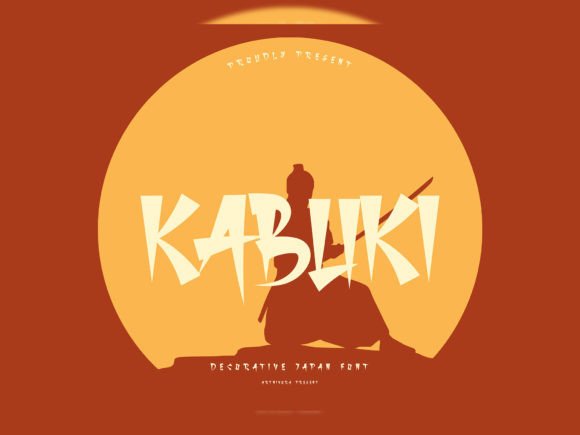
Immerse yourself in the captivating world of Japanese aesthetics with Kabuki, a display font that dances with bold strokes and dynamic energy. Experience the beauty of traditional Japanese theater as this font carries your designs to new heights of elegance and authenticity.
Crafted by the talented team at artnivora.std, Kabuki is not just a font; it's an artistic journey, capturing the essence of Japan's rich cultural heritage. With each stroke, this display font paints a picture of ancient rituals and enchanting performances, transforming your projects into visually stunning masterpieces.
Whether you're creating eye-catching headlines, captivating posters, or unleashing your creativity in artistic endeavors, Kabuki is your perfect companion. Its bold and dynamic strokes command attention, making your messages stand out from the crowd. The intricate details and authentic Japanese flair add depth and dimension to your designs, evoking a sense of wonder and admiration.
Kabuki is more than just a font; it's a cultural ambassador, carrying the spirit of Japan through its artistic expression. Let your designs become a testament to the beauty and wonder of Japanese aesthetics, and allow Kabuki to guide your audience on an unforgettable journey to the heart of Japan's rich cultural tapestry.
Embrace the artistry of Kabuki and let your designs blossom into stunning reflections of your creativity and imagination. Experience the allure of Japanese aesthetics and leave your audience spellbound by the captivating beauty of this extraordinary display font.